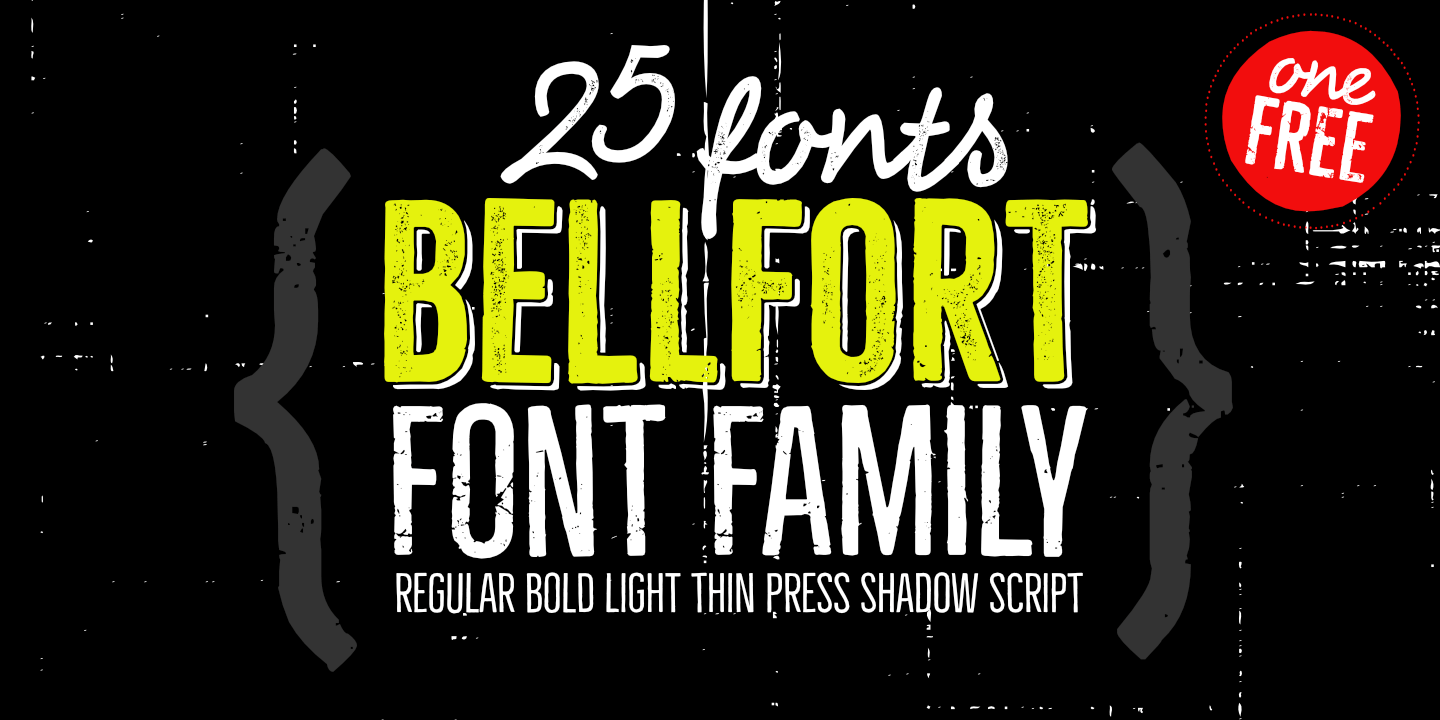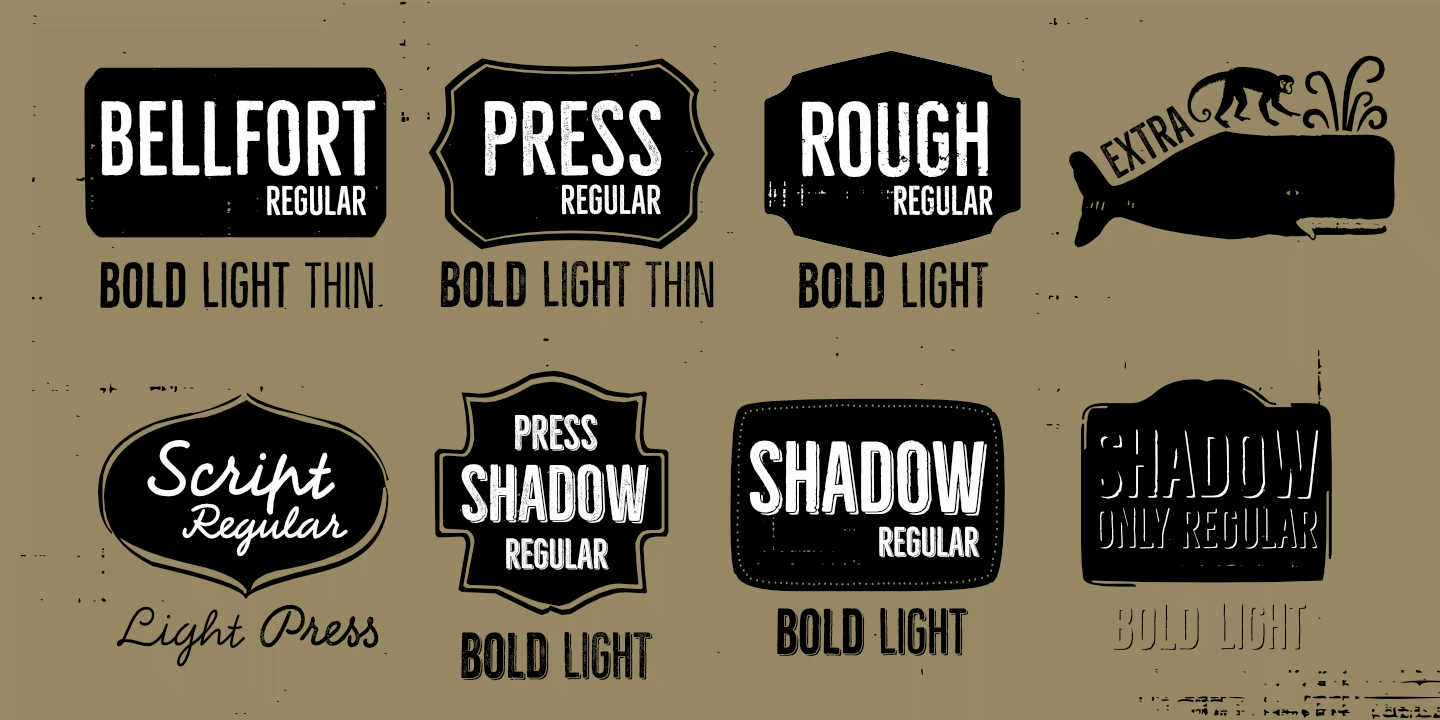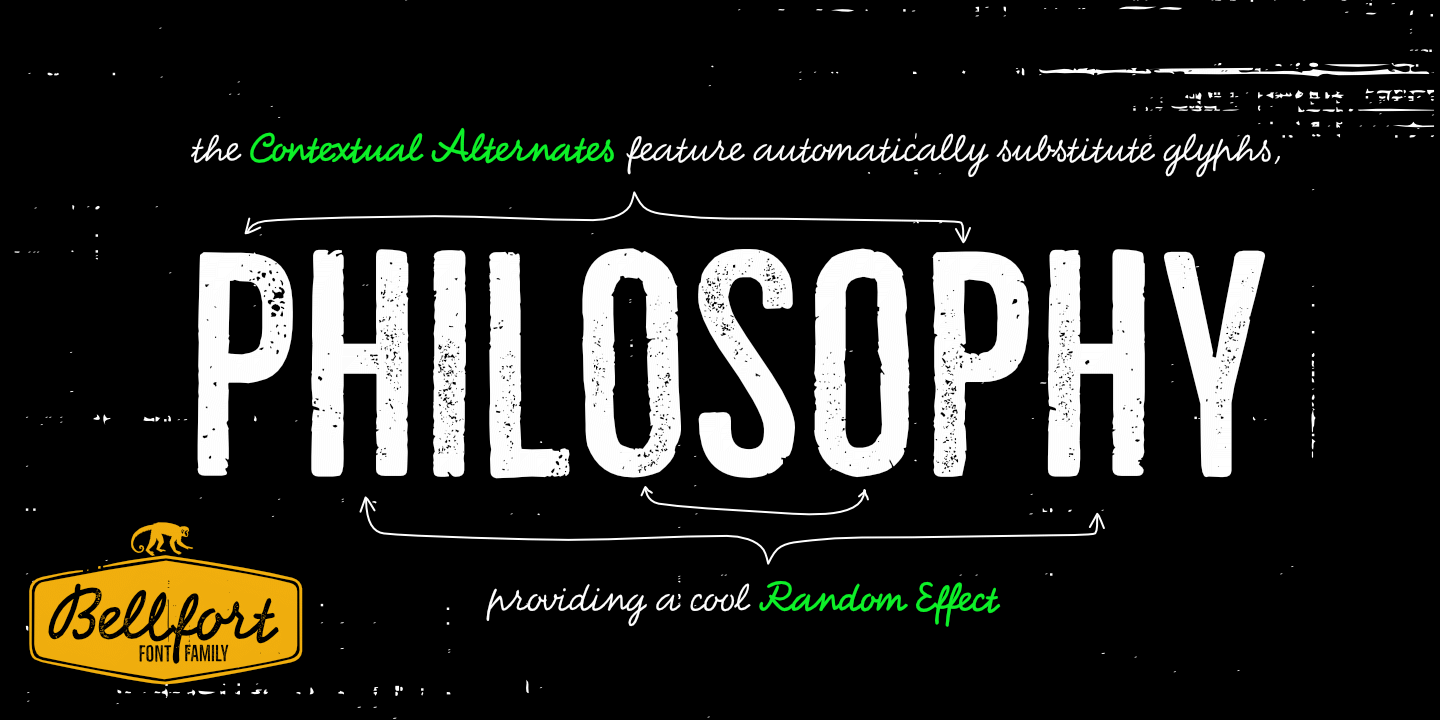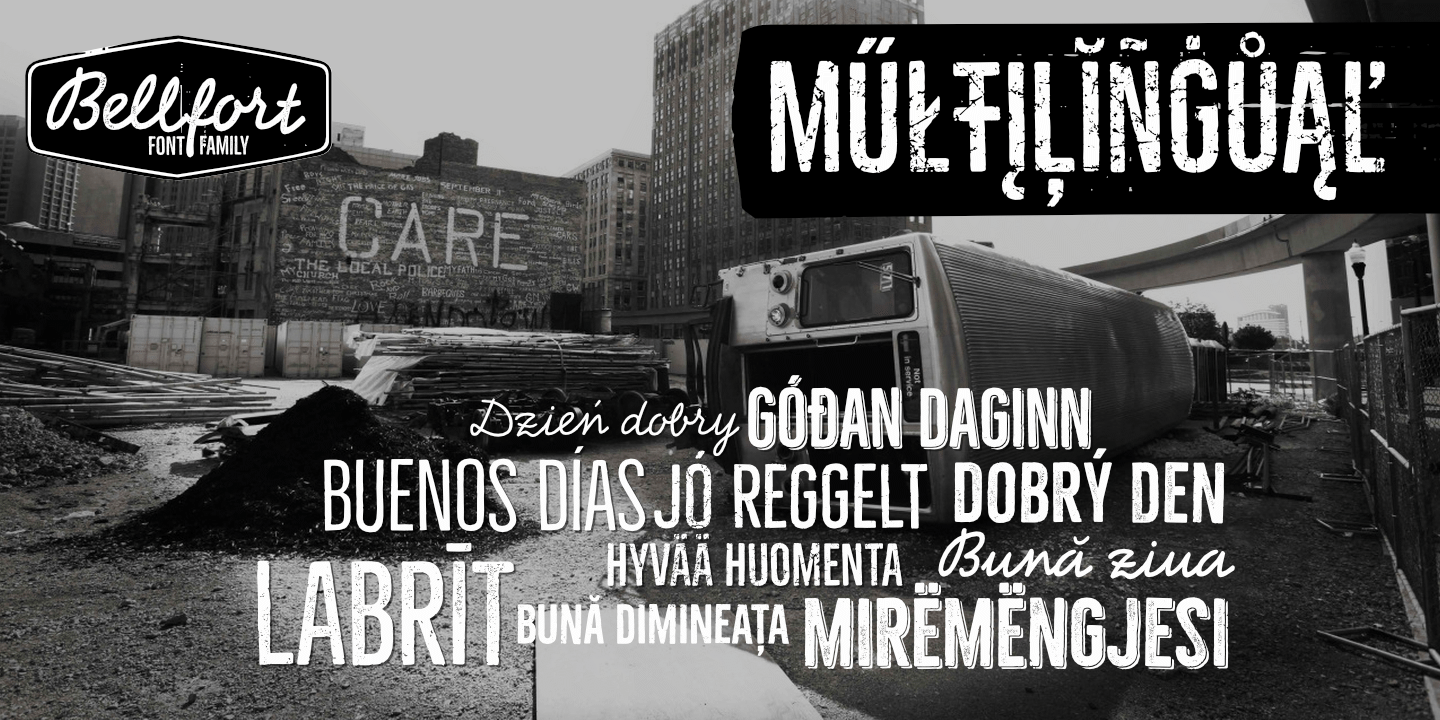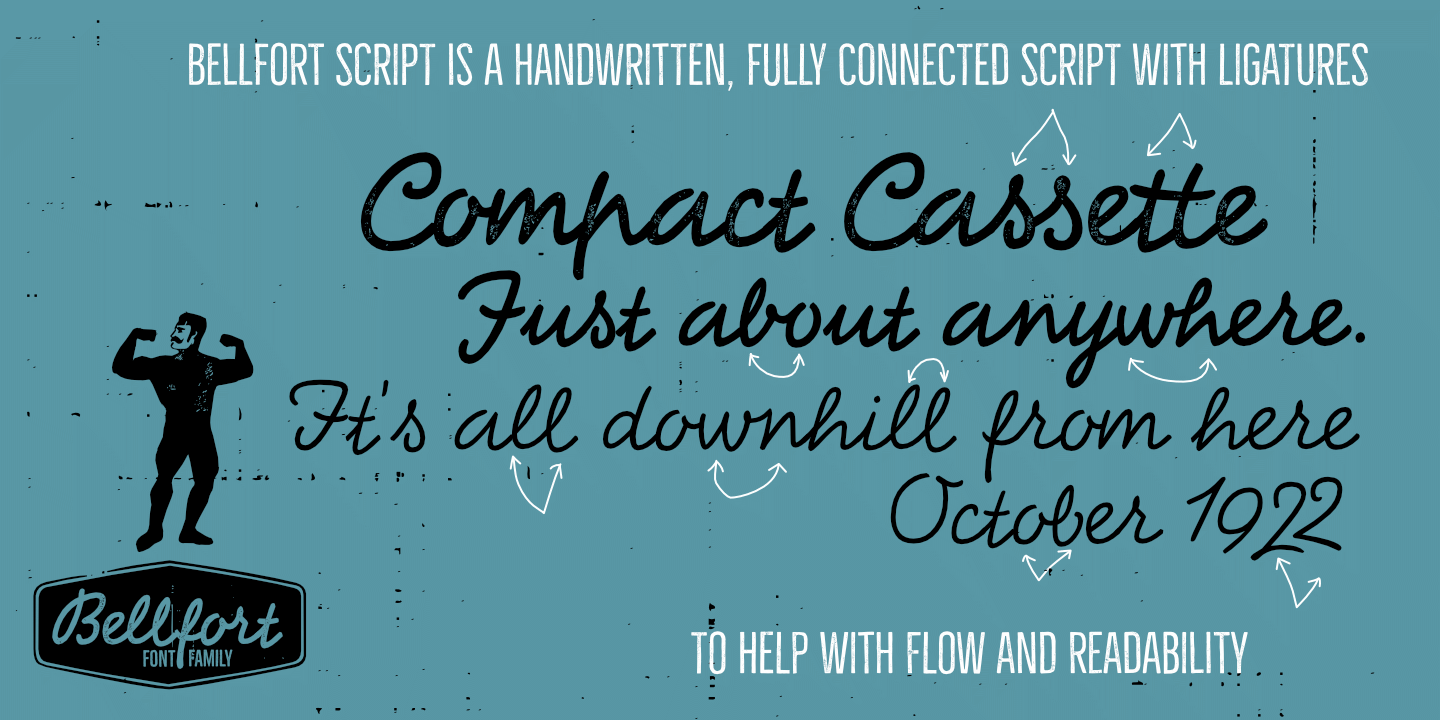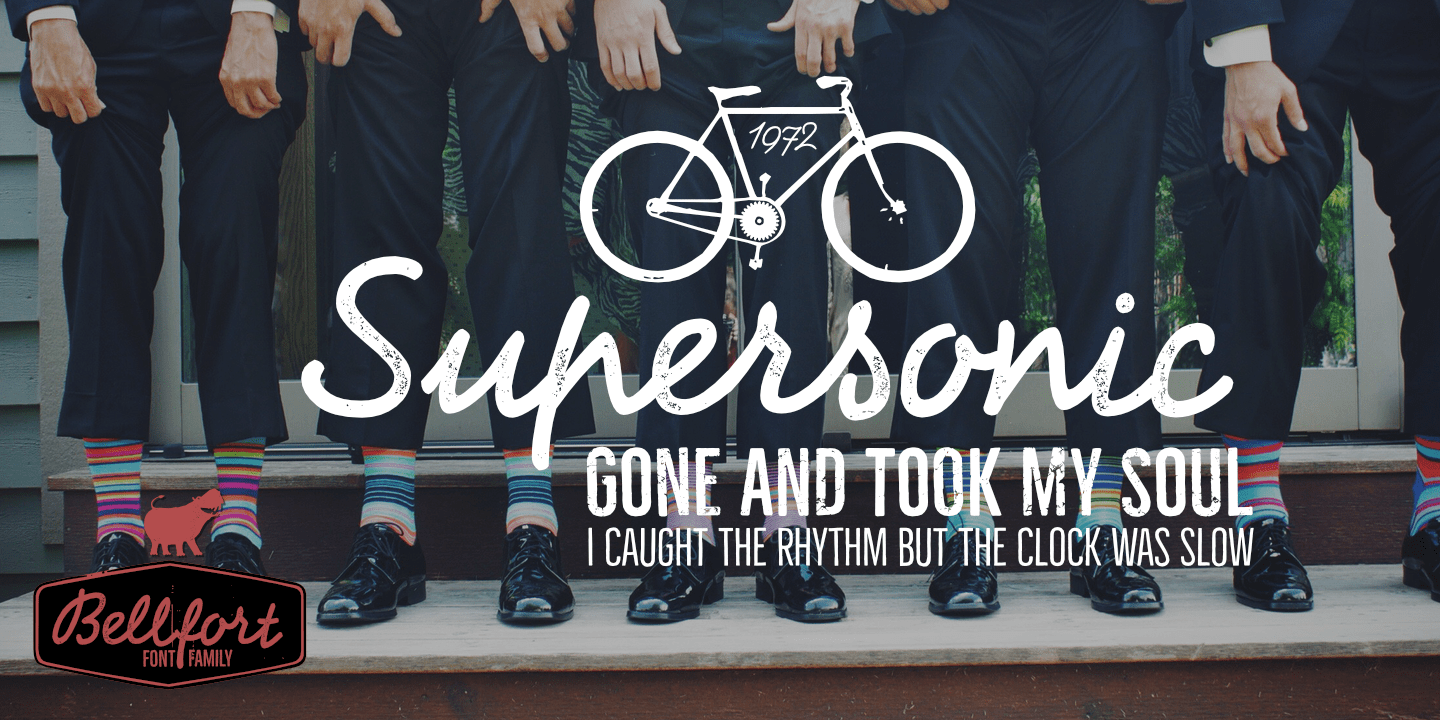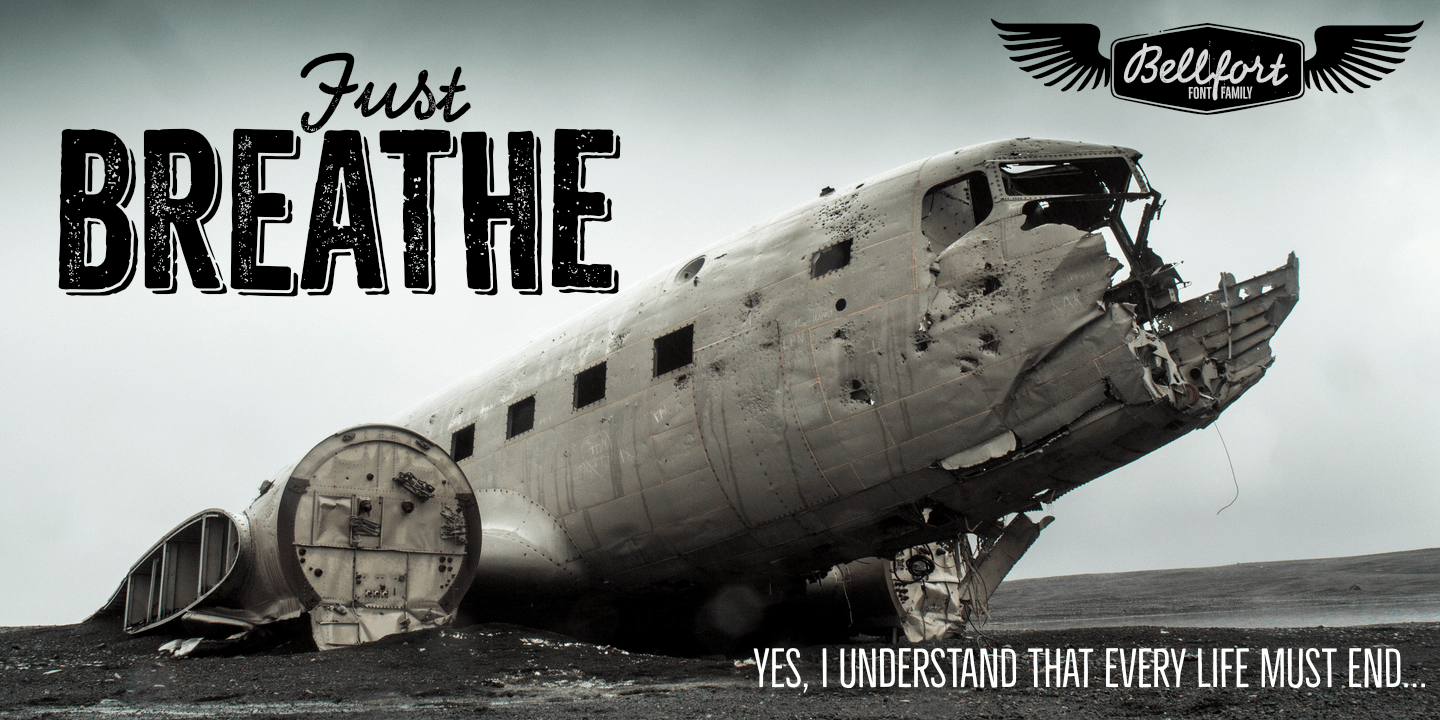
Bellfort
Font Family by GRIN3 (Nowak)
Bellfort family features 7 different sub-families: Regular, Rough, Press, Shadow, Press shadow, Shadow Only, Script. Each of these sub-families contains up to four font weights. When the font is used in OpenType-savvy applications, the 3 variants of glyphs are automatically alternated to achieve a random-like effect. When not using the Contextual Alternates feature, you can still pick the alternates in the Glyphs palette or use the alternates available from the keyboard upper and lower case.
Bellfort Script is a handwritten, fully connected script with ligatures and contextual alternates to help with flow and readability.
Language support includes Western, Central and Eastern European character sets, as well as Baltic and Turkish languages.